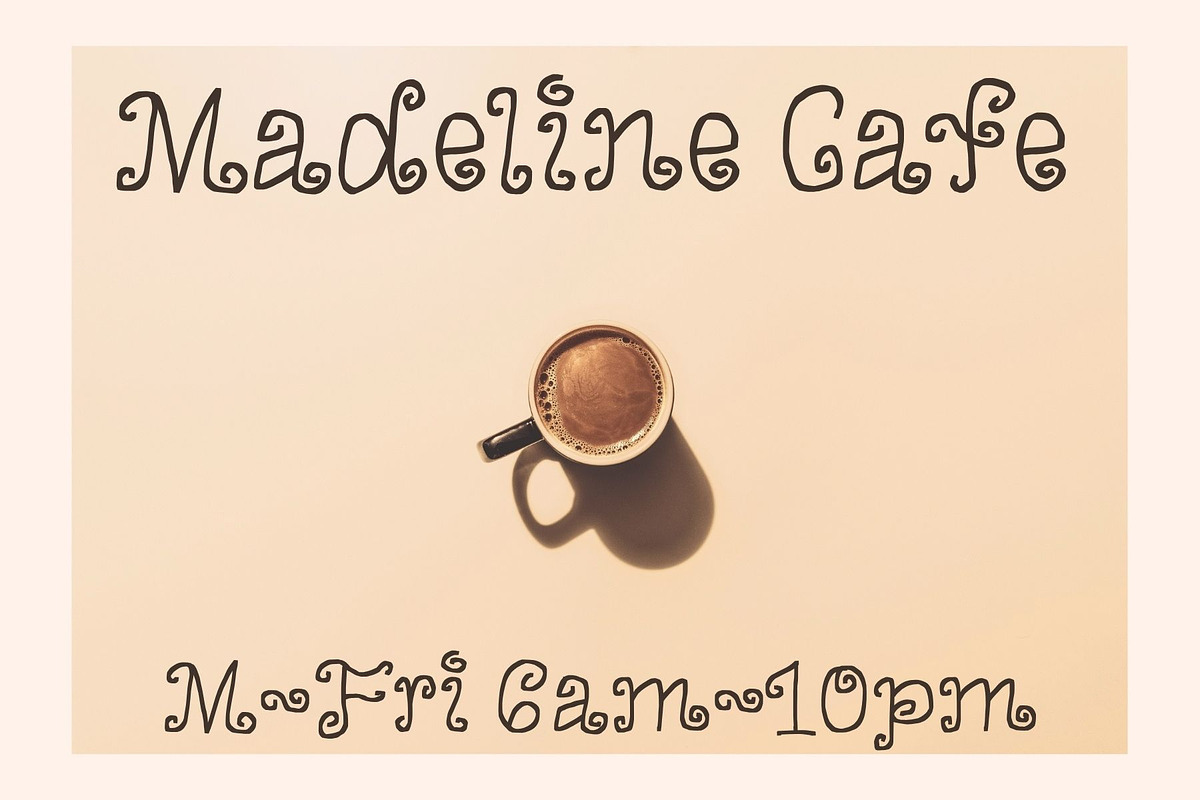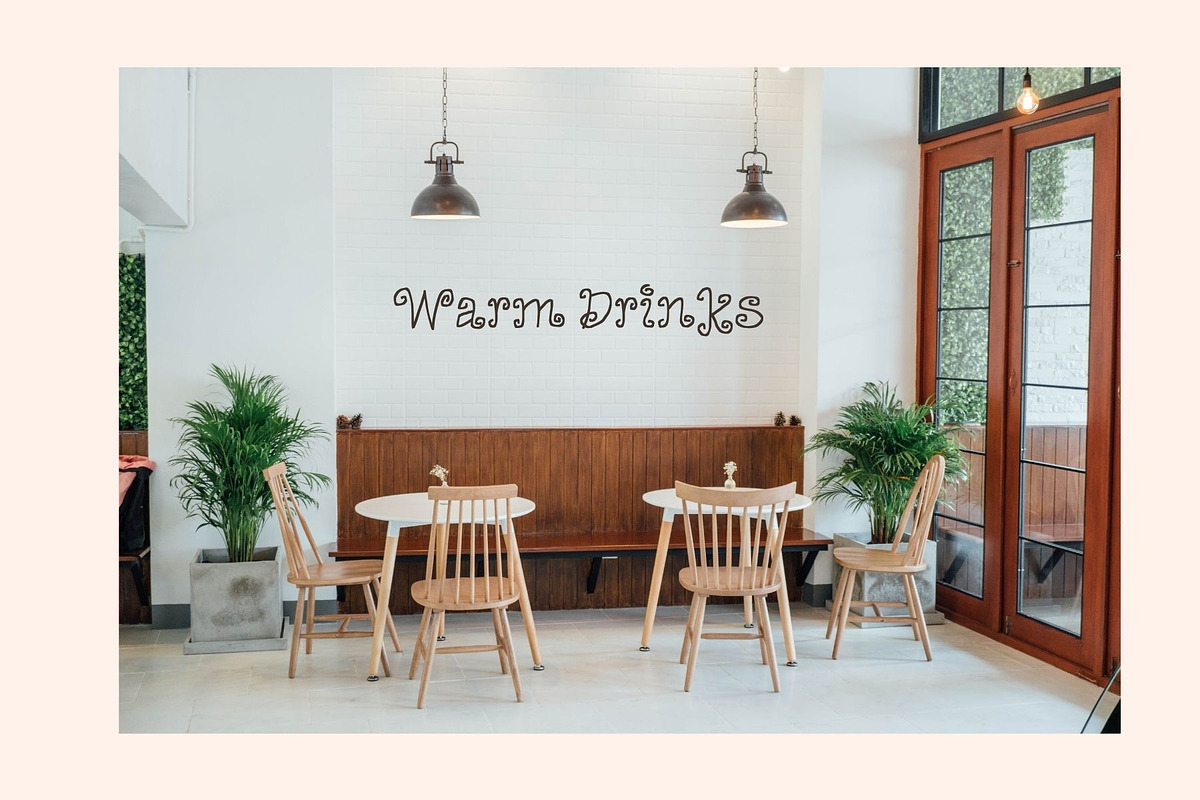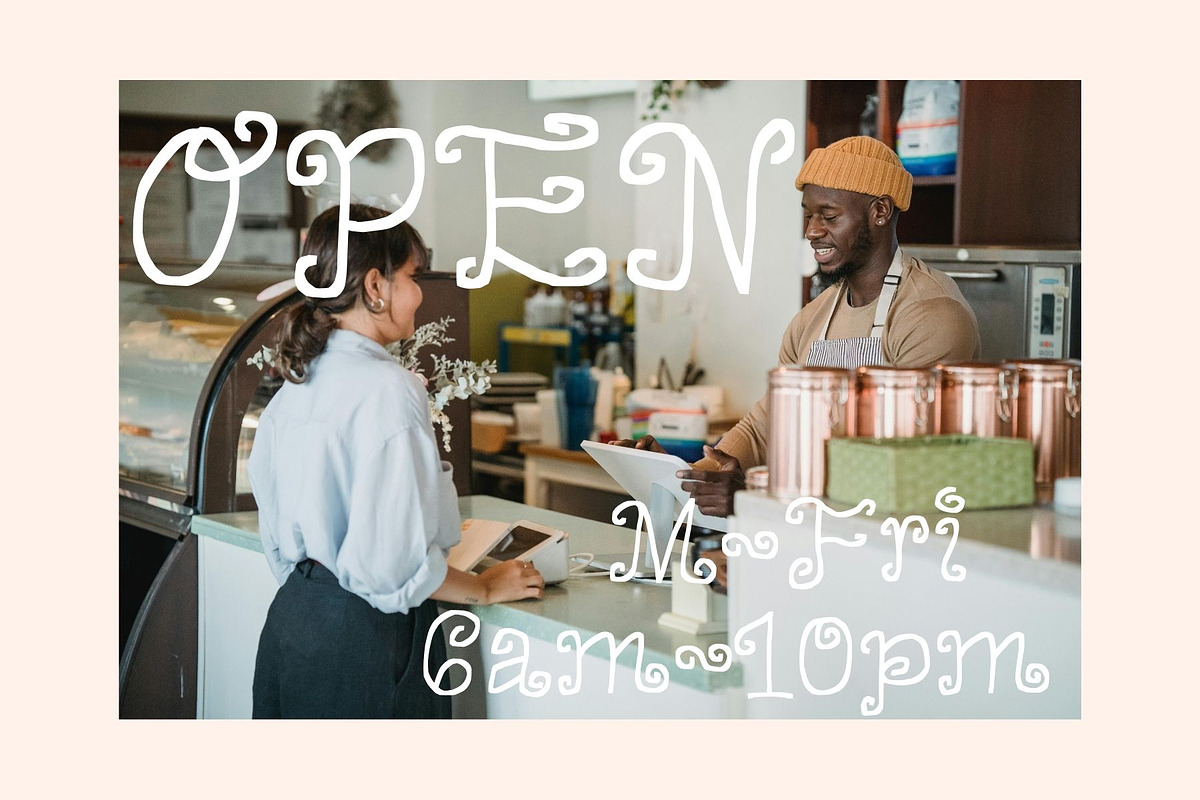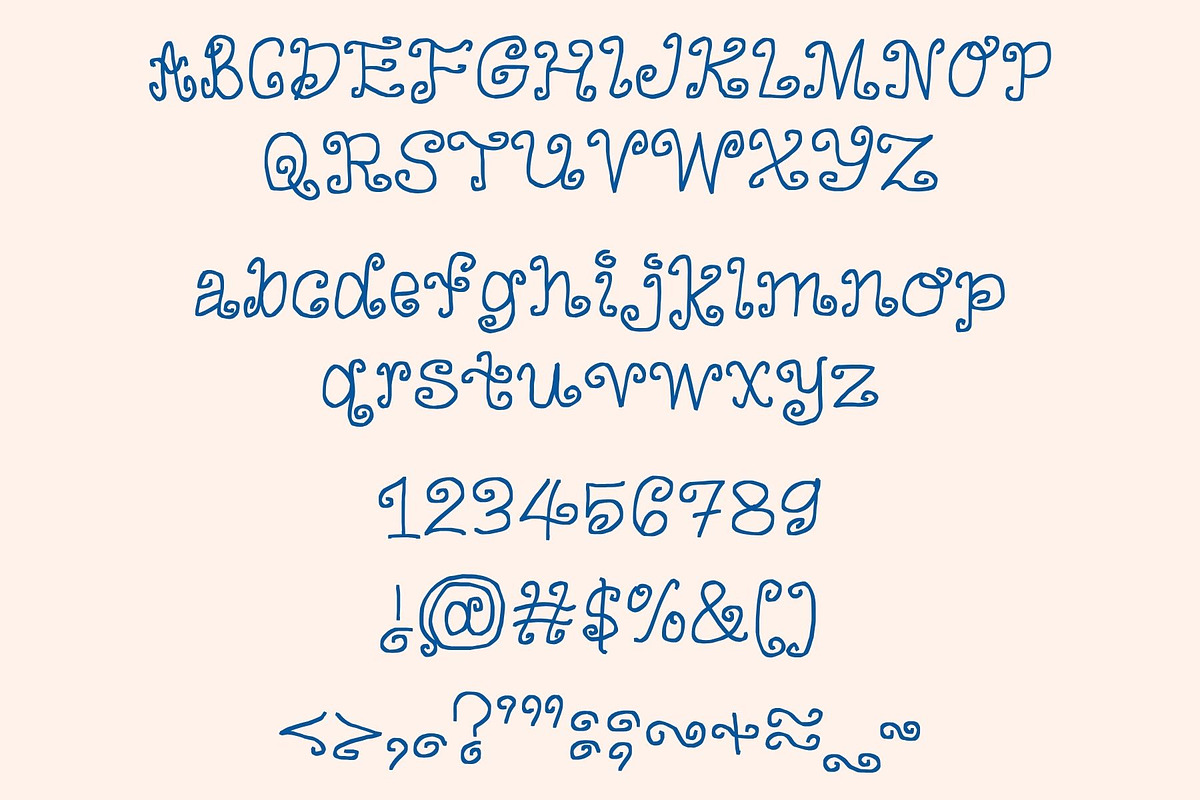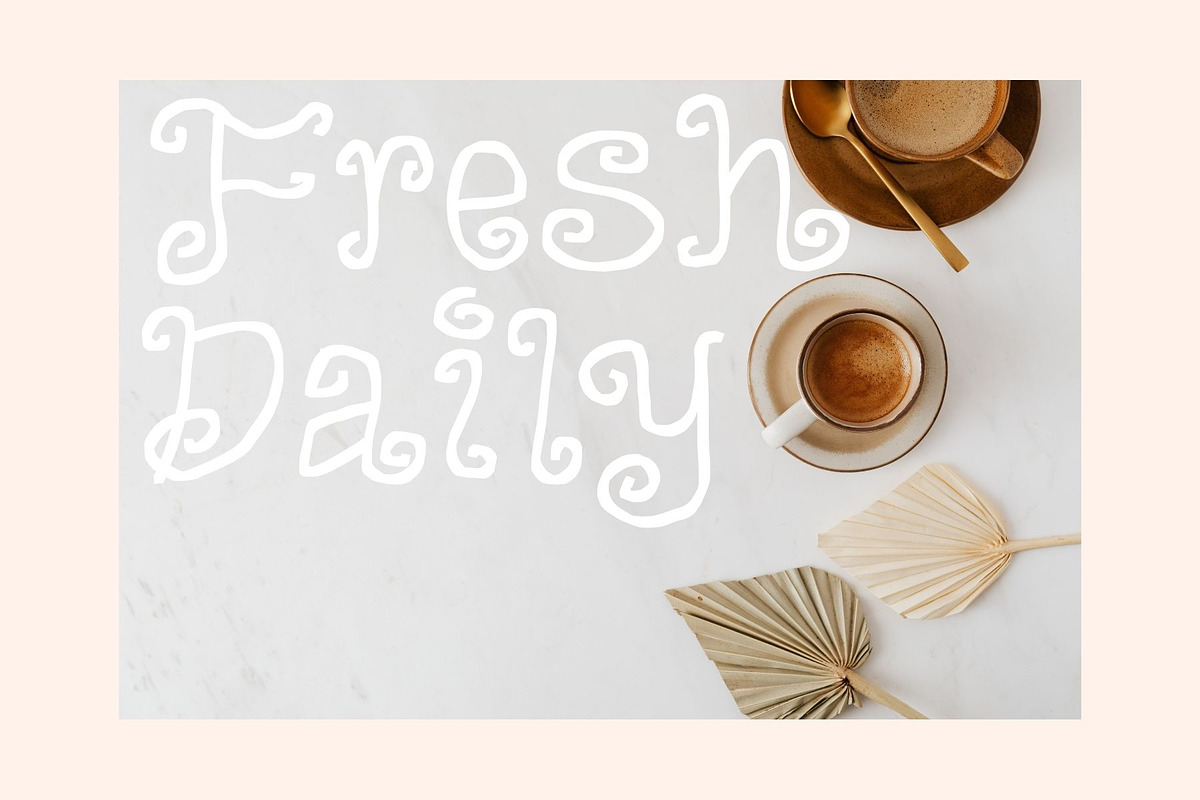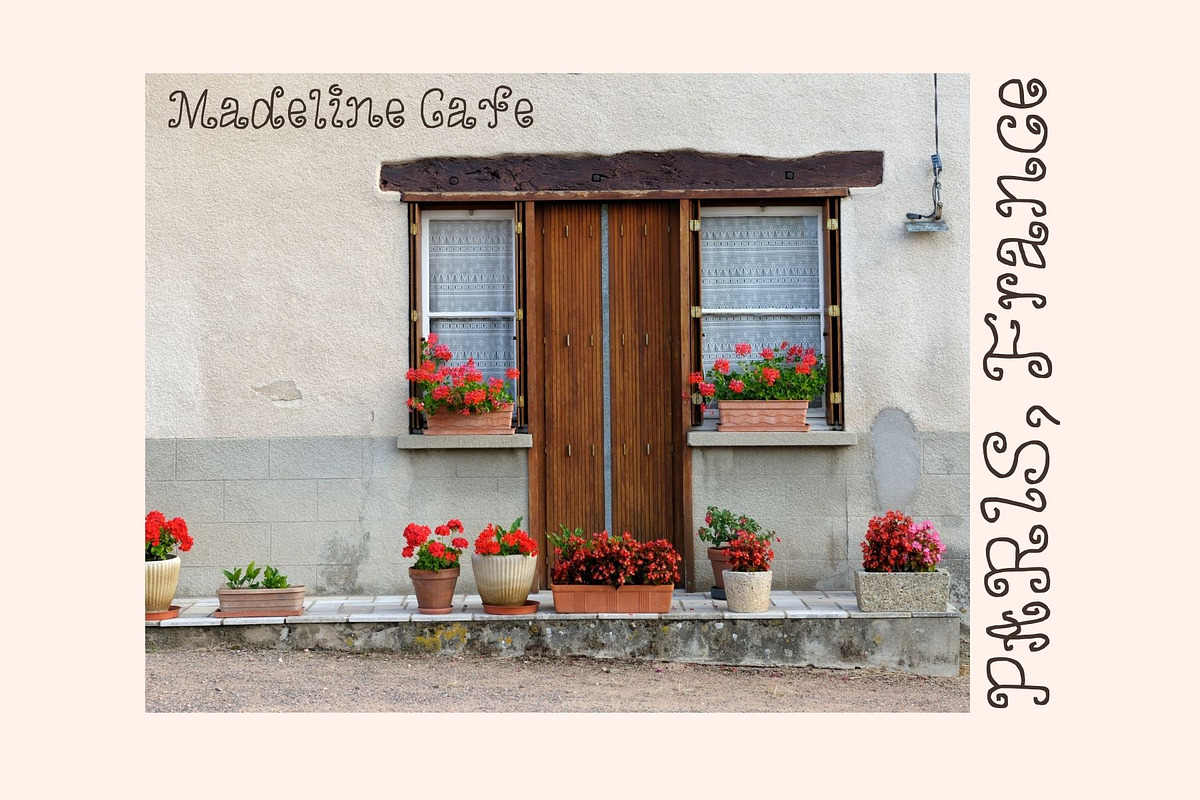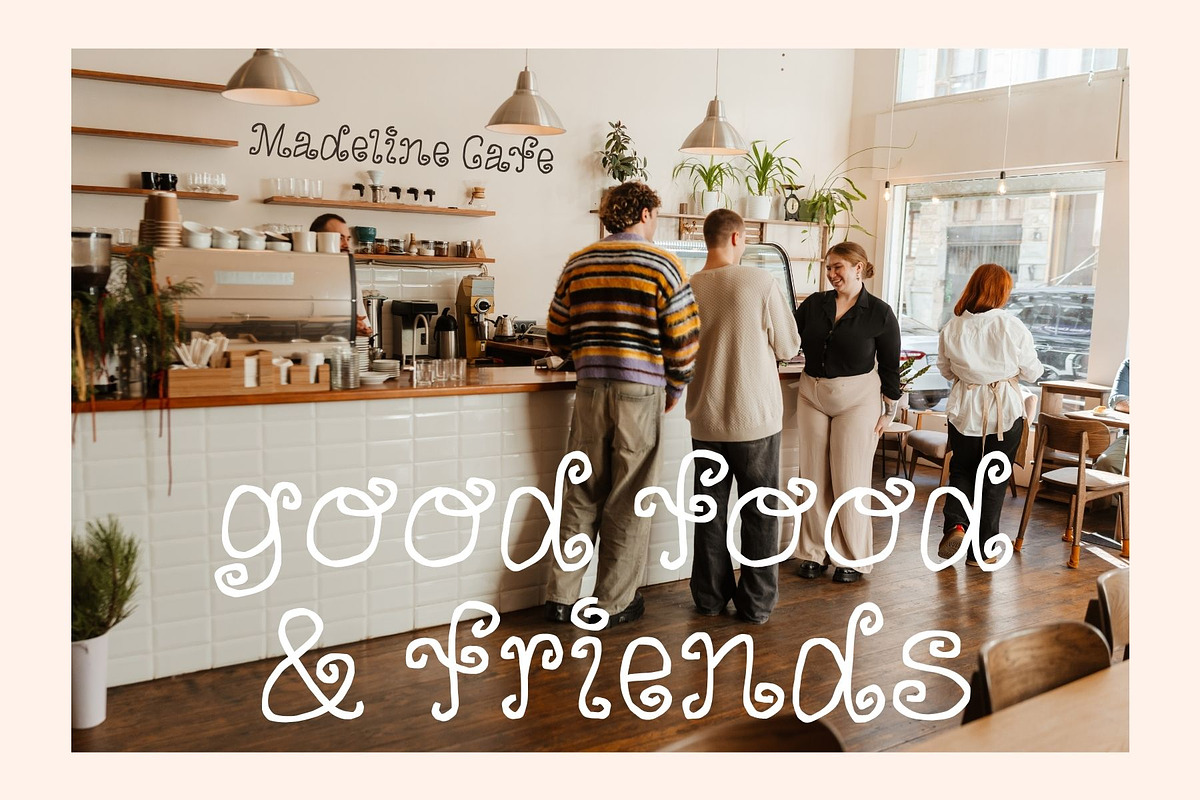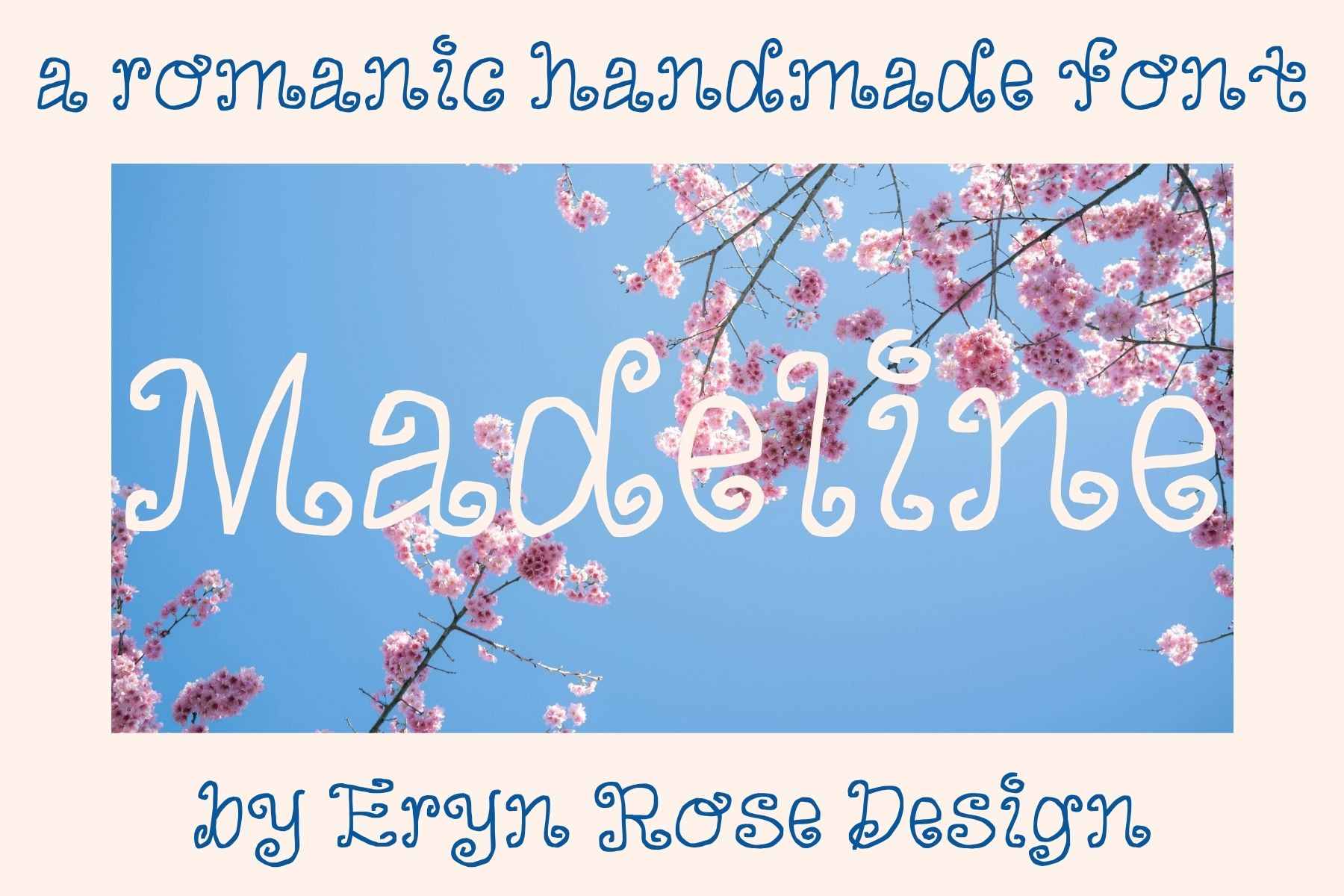
Madeline a Romantic Swirly Font
Madeline : a hand-drawn swirly , romantic display font.
full alphabet and standard symbols
Madeline , she's quaint, elegant, and welcoming - pulling you in with her delightful imperfection and beautiful swirls. Madeline is truly a font with that je ne sais quoi .
Madeline was made with a warm human hand , retaining soul, personality, and authentic magnetism. This is a great font for those who appreciate the imperfect hand-drawn aesthetic , while remaining refreshingly clean, new, and trendy. I love this font for : wedding invitations, stationary design, indie book or album covers, children's fashion labels, or display/product design. People will be asking, who is that Madeline girl ?